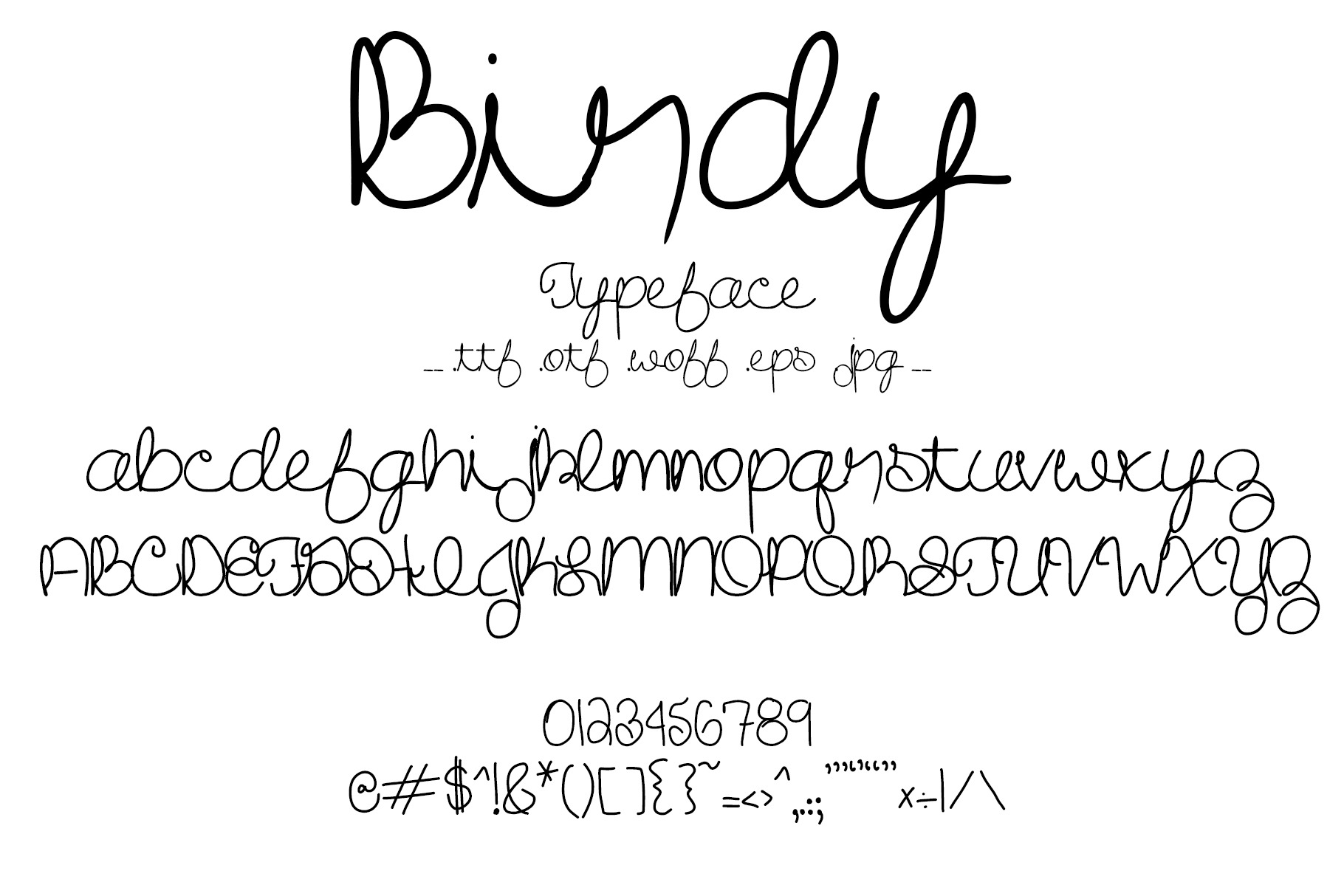
Font Birdy Cursive Script Fun Cute
Hand drawn font typeface, called Birdy, has script, cursive letters that fit together beautifully. The style is pretty and cute, for a fun event or project.